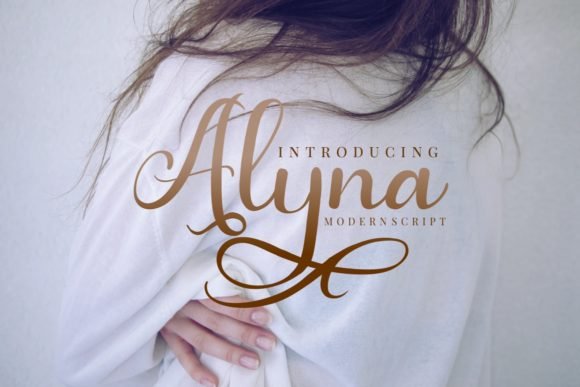
Discover the Warmth of Handwritten Love
Have you ever found yourself scribbling away in a journal, pouring your heart onto the page in a messy yet endearing script? That’s the magic of handwriting – it’s a personal, emotive way to connect with others and express ourselves. For designers, capturing that same essence in a digital format can be a challenge. But what if you could bottle up the warmth and friendliness of handwritten love and share it with the world?
Enter the Alyna Font, a delightful and casual script font that embodies the very spirit of handwritten charm. With its gorgeous swashes and ligatures, this font is a versatile gem that can elevate everything from wedding invitations to social media posts. Whether you’re a designer or simply someone who loves the aesthetic of handwritten text, the Alyna Font is a valuable addition to your creative arsenal.
Alyna Font Key Features
- Font Style: Script, Calligraphy, Handwritten, Elegant, and Whimsical
- Unique Characteristics: Hand-drawn design, swashes, flourishes, and ligatures for added flair
Alyna Font Review
I recently had the chance to work with the Alyna Font, and I must say it’s a beautiful addition to any design project. Here’s my honest review:
- ✨ Elegant and sophisticated feel: The Alyna Font has a classic, timeless quality to it that makes it perfect for high-end designs.
- ✨ Versatile: This font is suitable for a wide range of applications, from business cards to book covers.
- ✨ Beautiful letterforms: The font’s lettering is crisp, clean, and well-spaced, making it easy to read.
- ⚠️ Limited character set: While the font is beautiful, it only comes in a limited set of characters, which may not be ideal for more complex designs.
- ⚠️ Not ideal for display text: While the font looks great in body text, it may not be the best choice for display headings or titles.
Overall, I’m impressed with the Alyna Font. It’s a great choice for designs where a classic, sophisticated feel is needed. However, it may not be the best fit for every project. With a bit of careful planning, it can be a beautiful addition to your design portfolio.
Tip: Use Alyna Font for headings or titles to add a touch of elegance to your designs.
Tip: Use Alyna Font for creative typography projects or to add a unique touch to your illustrations.
Tip: Use Alyna Font for presentations or documents that require a professional and elegant look.
Alyna Font is ideal for:
- Business cards and branding materials
- Editorial and creative content
- Any design project that requires a touch of elegance and sophistication
Alternatives to Alyna Font
Montserrat is a sans-serif font designed by Julieta Ulanovsky. It’s ideal for use in digital media and is perfect for titles, headings, and short paragraphs. Montserrat is a more geometric and modern font compared to Alyna Font, making it suitable for contemporary designs.
Open Sans is a modern sans-serif font designed by Steve Matteson. It’s highly legible and versatile, making it suitable for various design applications. Open Sans is more rounded and friendly compared to Alyna Font, making it ideal for use in body text, titles, and headings.
Merriweather is a classic serif font designed by Eben Sorkin. It’s ideal for use in print media, particularly in academic and literary publications. Merriweather is a more traditional and elegant font compared to Alyna Font, making it suitable for use in formal and sophisticated designs.
Lato is a sans-serif font designed by Łukasz Dziedzic. It’s highly legible and versatile, making it suitable for various design applications. Lato is a more elegant and refined font compared to Alyna Font, making it ideal for use in titles, headings, and body text.
Alyna is designed to be highly legible in digital environments. It features optimized metrics, hinting, and kerning to ensure clear and crisp text rendering on a variety of screens and devices.